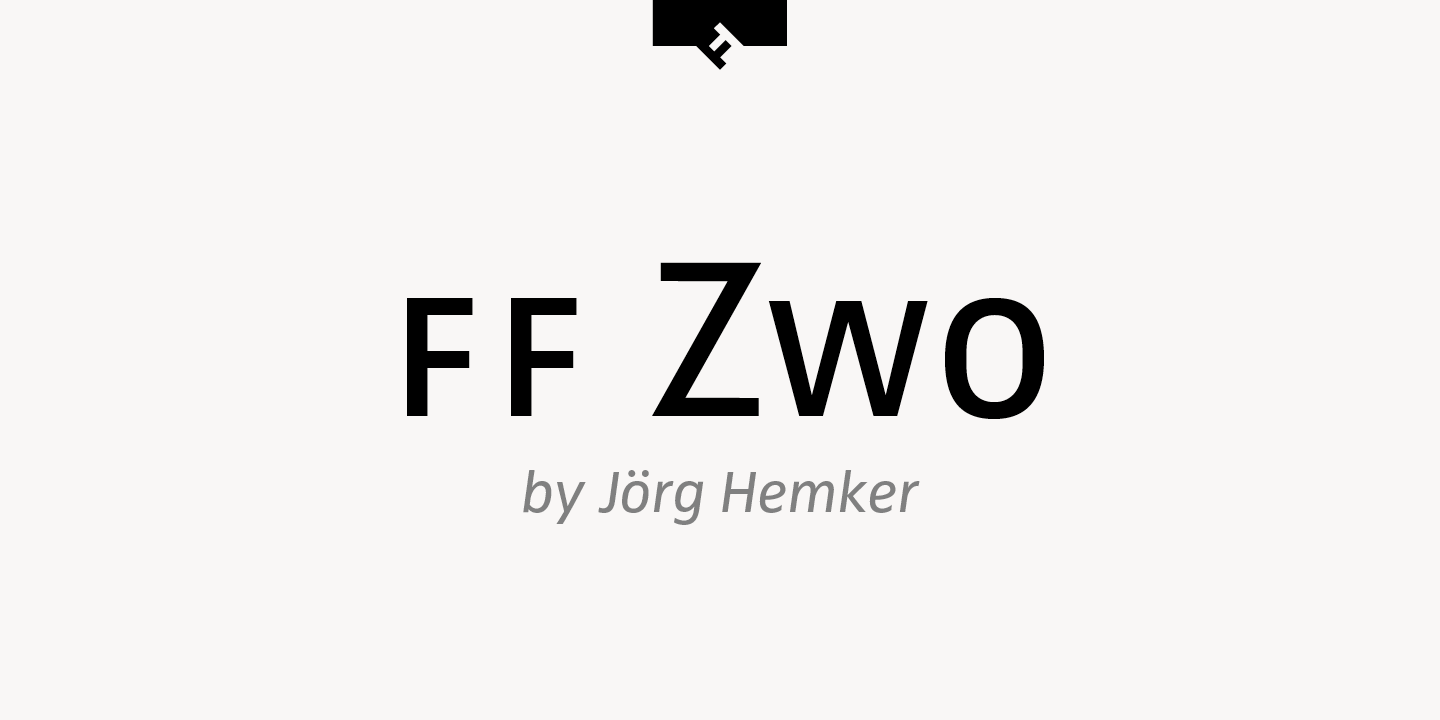
FF Zwo Font is perfect for contemporary branding, modern editorial design, digital interfaces, corporate communications, architectural signage, fashion magazines, luxury packaging, and minimalist advertising campaigns.
What makes FF Zwo Font exciting is its sophisticated balance between geometric precision and organic flow, creating a distinctive sans-serif typeface that feels both technical and humanistic. This innovative font features subtle curves and refined proportions that deliver exceptional readability while maintaining a cutting-edge aesthetic for forward-thinking design projects.
The FF Zwo Font family includes multiple weights ranging from Light to Bold, each available in regular and italic variations, plus condensed versions that maximize space efficiency while preserving the typeface's characteristic elegance and professional appeal.
FF Zwo Font Free Download provides access to a premium typeface that represents the evolution of contemporary typography. This versatile sans-serif font combines Swiss design principles with modern digital craftsmanship, resulting in a typeface that performs excellently across all media formats. The font's clean construction and balanced character spacing make it ideal for both display and text applications, while its distinctive personality adds sophistication to corporate identities, editorial layouts, and digital platforms. Whether designing websites, annual reports, or brand materials, this font delivers consistent performance with its refined aesthetics and professional quality that enhances visual communication and ensures optimal legibility across all design contexts.